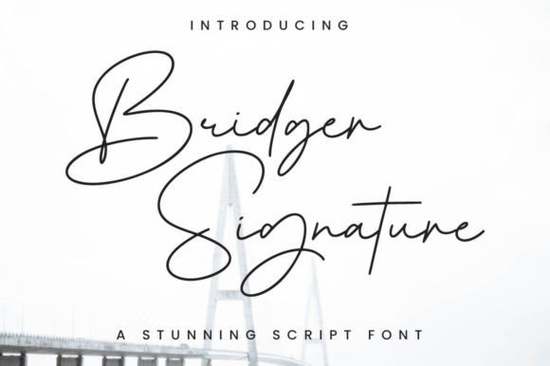
If you’ve been searching for a handwritten script that feels effortlessly stylish without trying too hard, the Bridger Signature Font might be exactly what your next project needs. It’s not overly ornate or stiff just smooth, natural, and full of personality. Whether you’re designing wedding invites, branding a boutique product line, or adding flair to social media graphics, this font brings a relaxed elegance that reads as both modern and timeless.
What makes Bridger stand out is how closely it mimics real handwriting. There’s no robotic uniformity here each letter flows with subtle variation, like ink laid down by hand. And because it’s PUA encoded, you won’t need special software or workarounds to access swashes or alternate glyphs. Just open your design tool, select the font, and start typing. The extras are built right in.
Who is this font best suited for?
Designers who value authenticity will appreciate how Bridger avoids looking “font-y.” Crafters working on vinyl decals, embroidery, or printable wall art can use it to add warmth and character. Print-on-demand sellers will find it especially useful for mockups think mugs, tote bags, or greeting cards where a personal touch sells better than generic typefaces. Small business owners creating their own logos or packaging can lean into its luxurious-but-casual vibe to stand out without shouting.
Even hobbyists dabbling in digital scrapbooking or journaling layouts will enjoy how easily Bridger blends into layered designs. It doesn’t overpower photos or illustrations it complements them.
How does it compare to other signature-style fonts?
Not all script fonts are created equal. Some feel stiff. Others go overboard with swirls. Bridger strikes a balance legible enough for short headlines, expressive enough for artistic projects.
- If you like the clean charm of Fancy Script, you’ll find Bridger more organic and less formal.
- Those who’ve used Rathgar Stencil for bold, textured projects might pair it with Bridger for contrast soft script against rugged stencil.
- Fans of Hello Andyán will notice Bridger has fewer decorative ligatures but feels more naturally written.
- Compared to Malibu Holiday, which leans playful and seasonal, Bridger is versatile year-round.
- And if you’ve tried This Brother for its casual energy, Bridger offers a slightly more polished but still relaxed alternative.
What kinds of projects work best with Bridger Signature?
This font thrives in contexts where personality matters more than rigid structure:
- Wedding stationery invitations, menus, place cards. Its flowing style adds romance without being cliché.
- Product packaging soap labels, candle jars, boutique tea boxes. It whispers “handmade” even when it’s not.
- Social media quotes overlay text on photos with a human, conversational tone.
- Book or blog titles especially for lifestyle, wellness, or creative niches.
- Branding elements logos, watermarks, or accent typography that needs to feel approachable.
One thing to note: Bridger works best at medium to large sizes. Tiny text loses some of its nuance, so avoid using it for body copy or fine print.
Any tips for getting the most out of this font?
Yes and they’re simple:
- Use sparingly. One headline, one quote, one logo. Let it breathe. Overuse dilutes its charm.
- Pair with a clean sans-serif. Try pairing it with something neutral like Montserrat or Lato to create visual hierarchy.
- Experiment with letter spacing. A little extra tracking can make words feel airier and more elegant.
- Don’t forget the swashes. Since they’re PUA-encoded, open your glyph panel and browse through alternates sometimes a single swashy ‘y’ or ‘g’ transforms the whole word.
Is there a learning curve?
Almost none. If you’ve used any OpenType font before, you’re set. No plugins, no font managers required. Just install, select, and start designing. Even beginners will feel confident using it within minutes.
The real “learning” comes in knowing when not to use it like in long paragraphs or technical documents. But that’s true of most script fonts. Bridger isn’t meant to do everything. It’s meant to do a few things beautifully.
Start small. Try it on a quote graphic or a product mockup. See how it feels. Chances are, once you use it, you’ll keep coming back not because it’s flashy, but because it feels like yours.